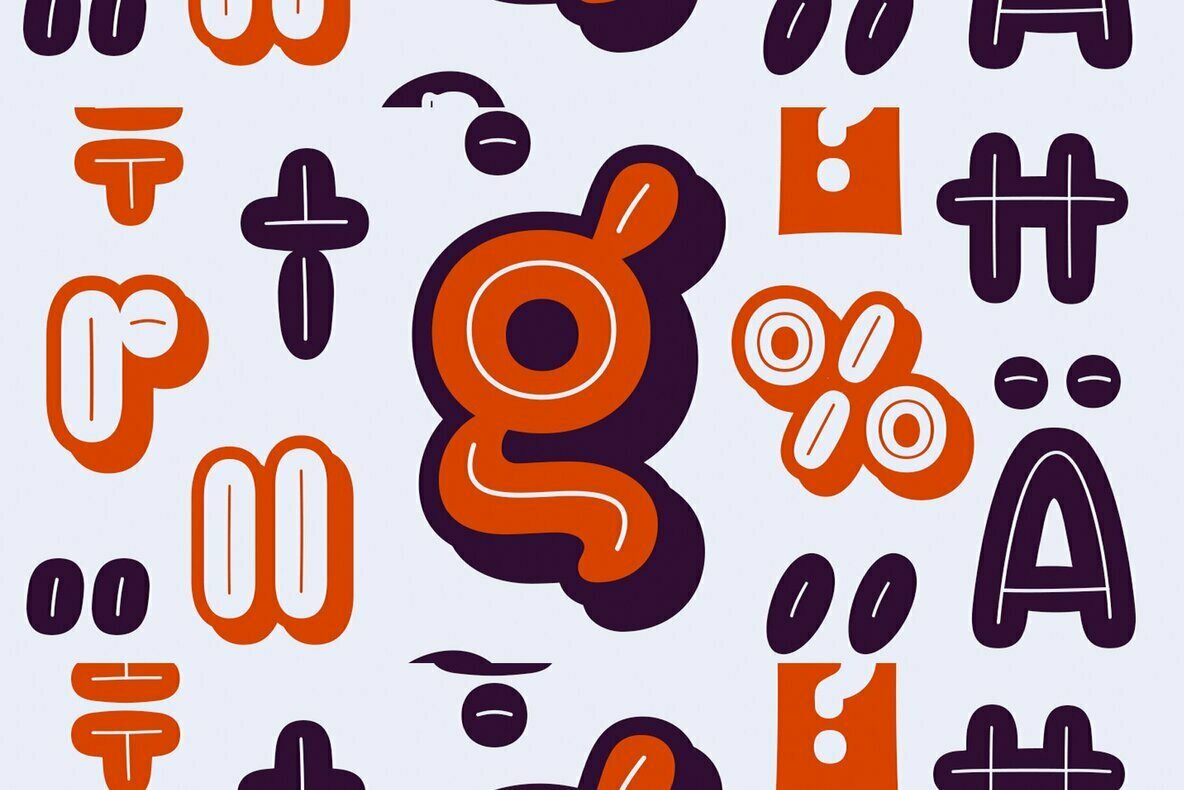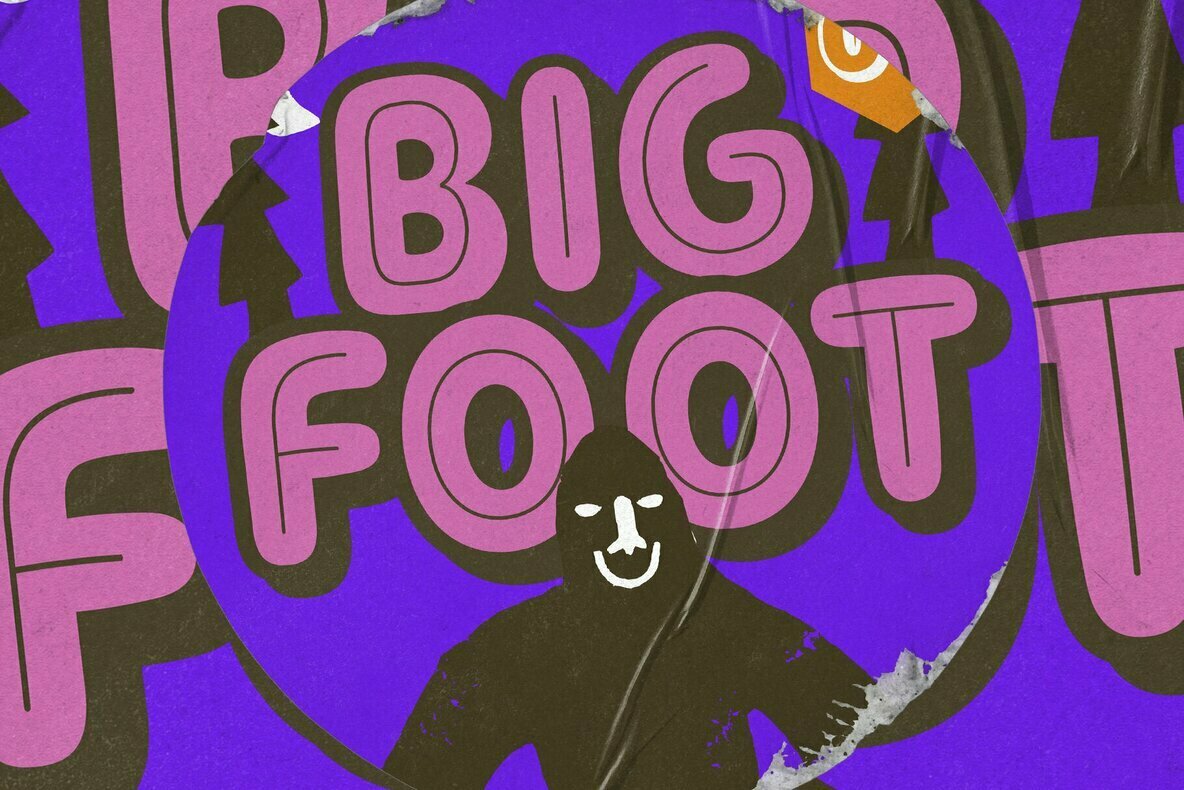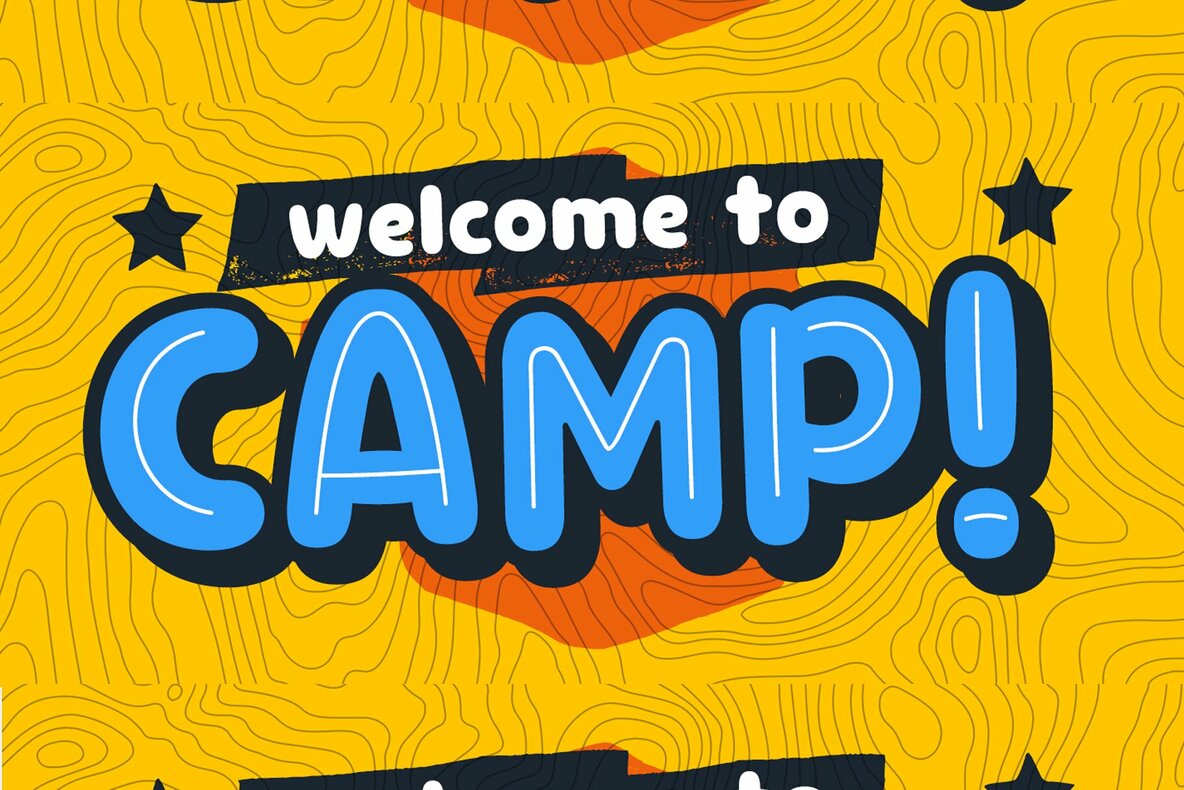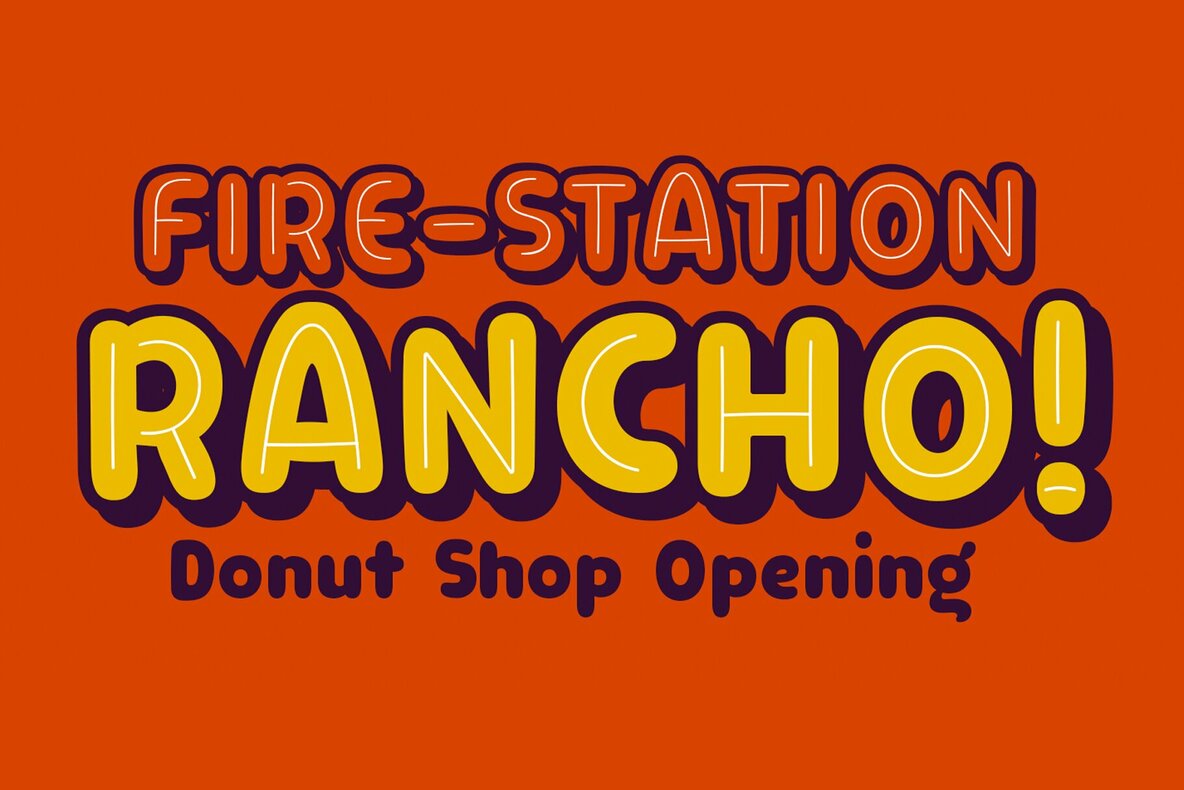
Clarence Inline Font
Clarence Inline is a captivating display typeface designed to imbue your projects with distinct character. Perfect for creative professionals seeking unique visual flair, this font offers multiple inline variations and shadow layering to enhance typographic compositions. Its striking design ensures it stands out, making it ideal for posters, branding, and eye-catching headlines.Clarence Inline: A Display Typeface With Personality